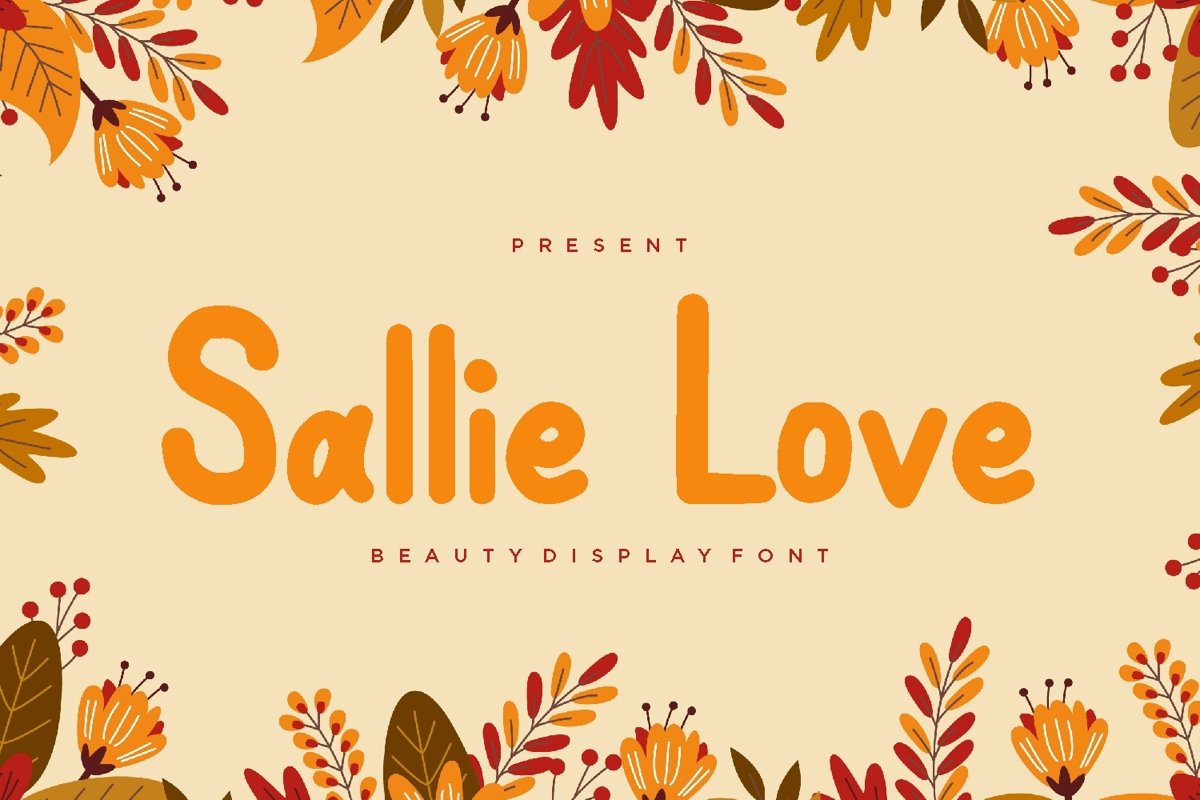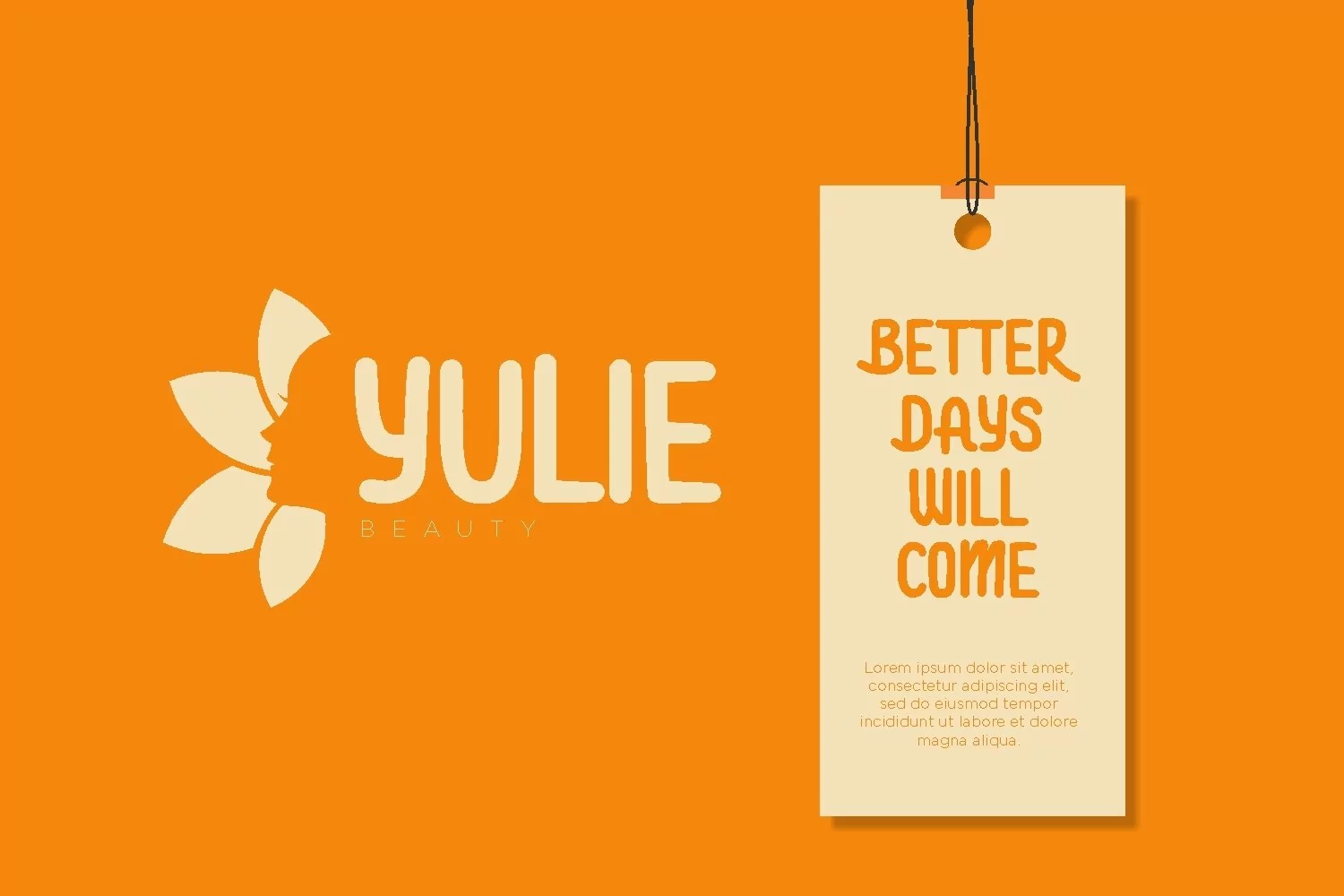
Sallie Love Display Font come with masculine themes. It matches applies in some designs such as the logotype, brand, packaging, quotes, music poster, t-shirt, cover book and more custom design. The features uppercase, lowercase, numeral, punctuation & symbol, multilingual support.